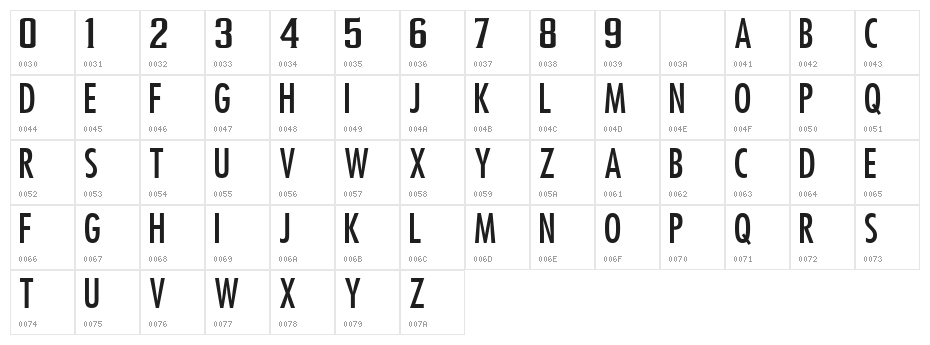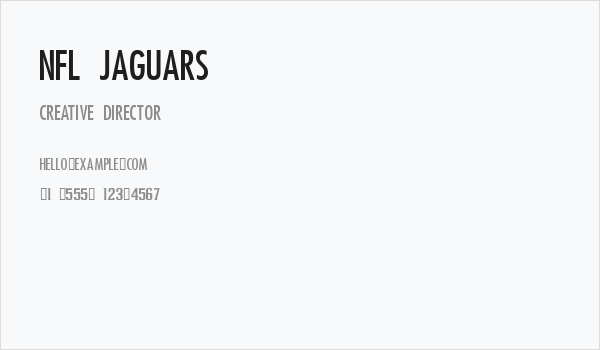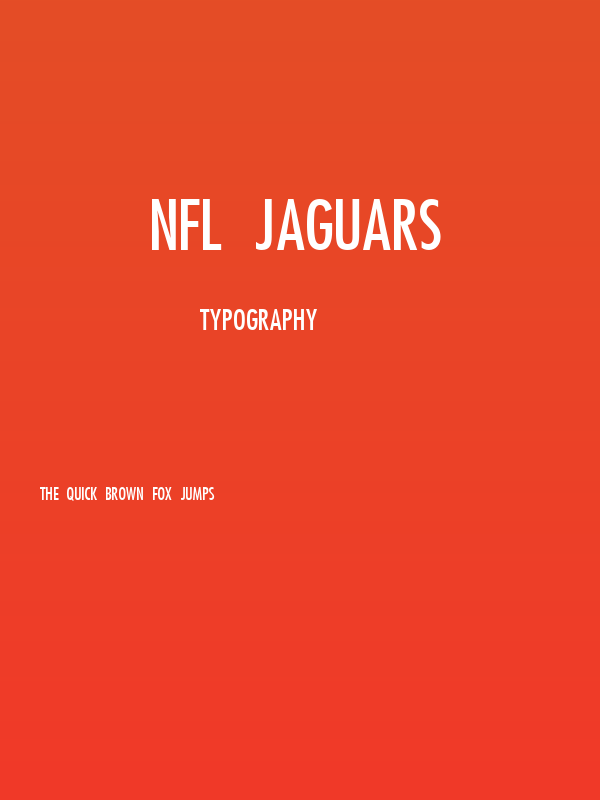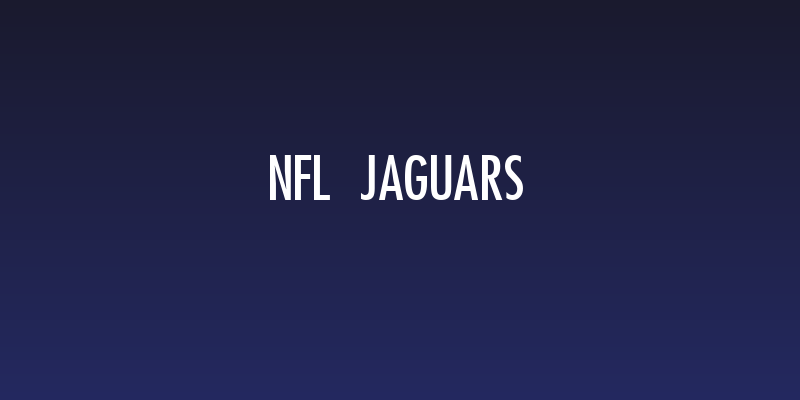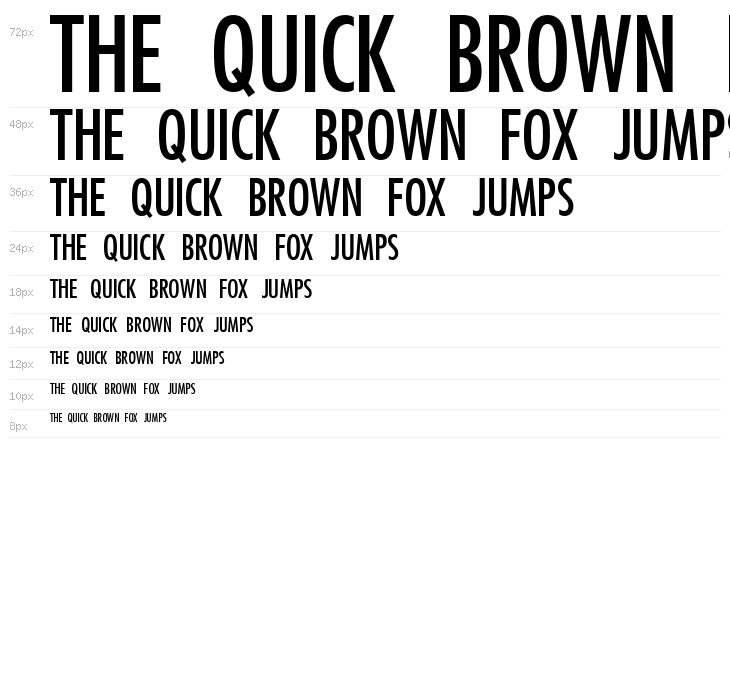
NFL Jaguars Font
NFL Jaguars Description
This font features a bold and modern sans-serif style, characterized by its tall, narrow letterforms and clean lines. The uppercase letters are uniform in height, providing a strong and cohesive appearance. The numerals are equally bold, maintaining the same height as the uppercase letters, which ensures consistency across different types of content. The font lacks any decorative elements, focusing instead on clarity and readability. Its geometric structure and even stroke width make it suitable for a variety of applications where a contemporary and assertive look is desired.